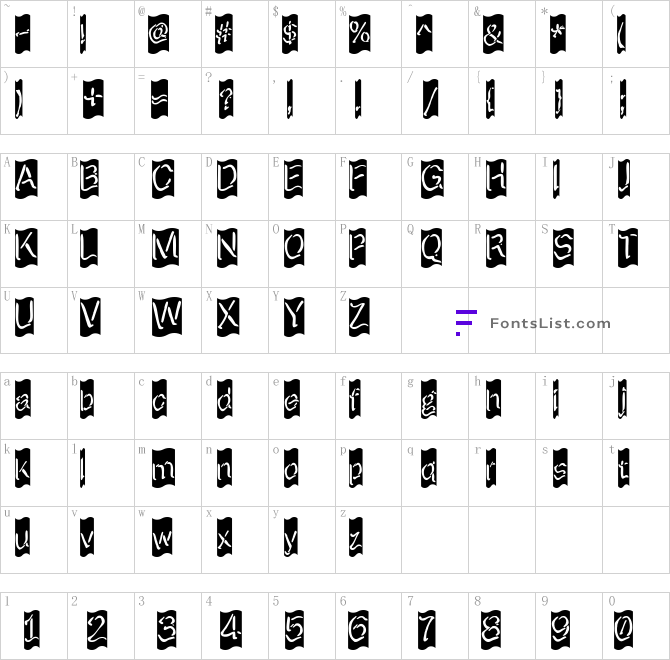
- Font Name:Arggh @$*# Lite
Arggh-@-#-Lite.ttf is a very beautiful artistic font, Arggh-@-#-Lite.ttf is widely used in the design and printing of various books and pictures,Arggh-@-#-Lite.ttf has a strong visual impact,Arggh-@-#-Lite.ttf is a commonly used font in newspapers, magazines and books, and is used in posters, e-commerce Poster design, store design, logo design, font design and other fields.Arggh-@-#-Lite.